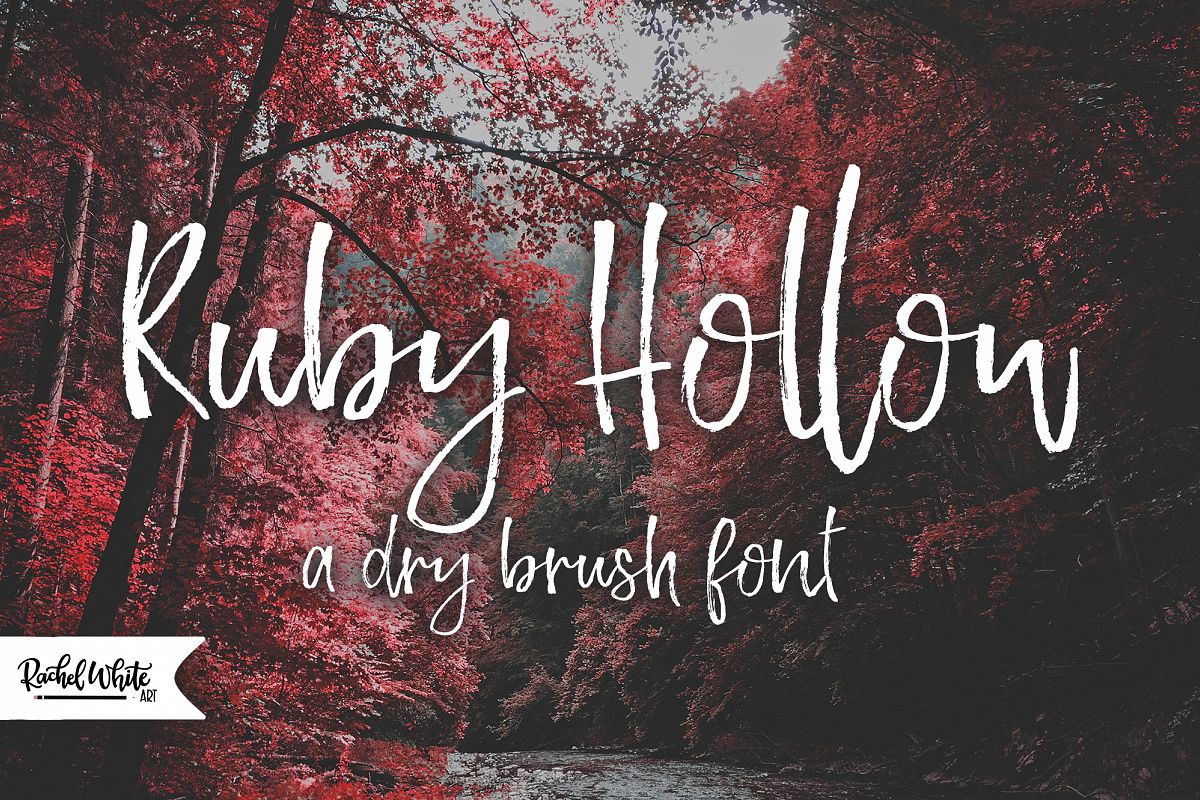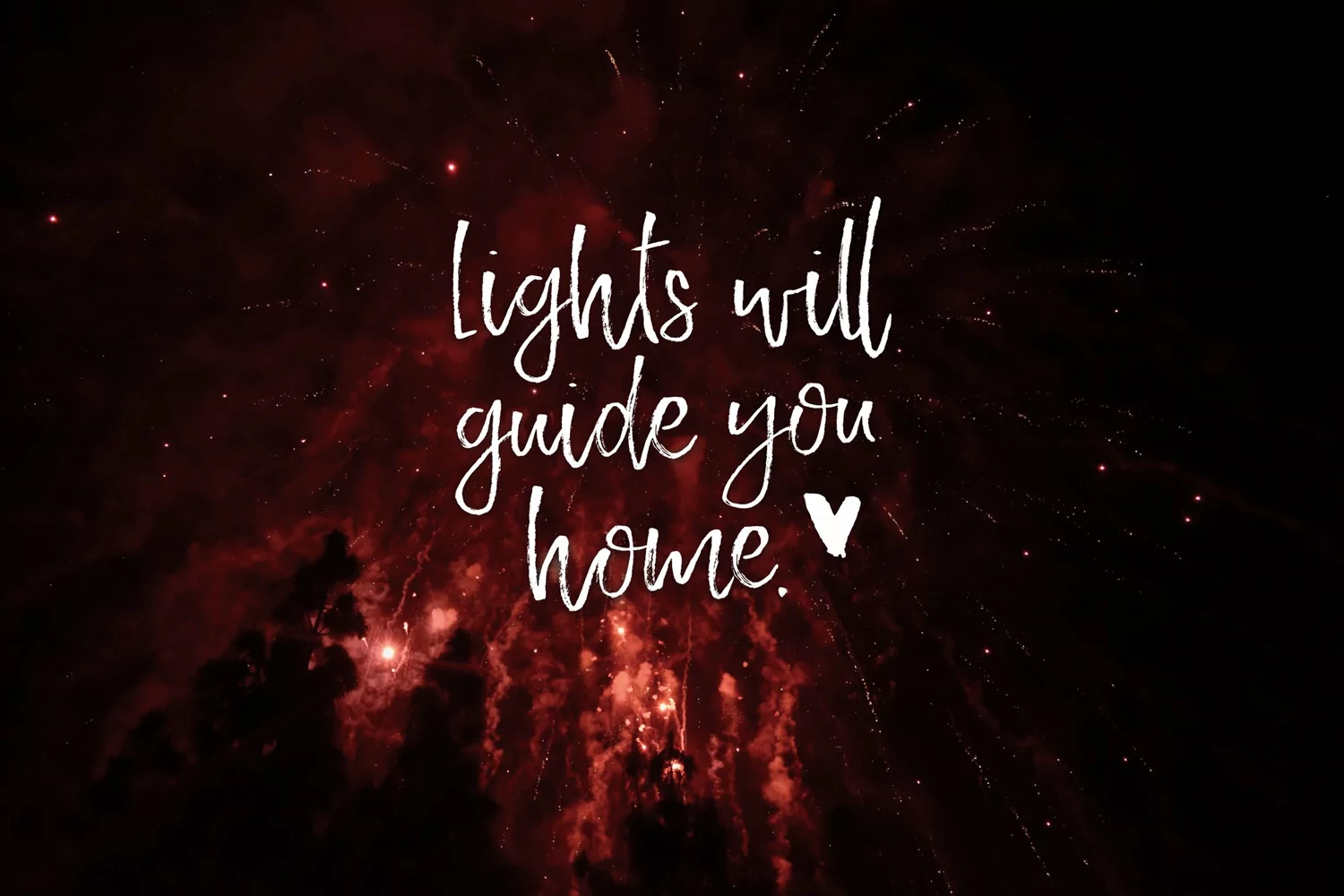
Ruby Hollow, a dry brush font
Ruby Hollow is a playful dry brush font. It has tons of brush stroke texture, so you can achieve a hand written look with ease! It's got a bouncy baseline, and slim lines.
• double letter ligatures - see image for details
• swashes
• unconnected contextual alternates for connecting letters (they act as end word characters, and also are programmed to pop up when interacting with s, v, x, and z for a more natural look.) and can also be accessed as Stylistic Alternates, or in the Glyphs panel.